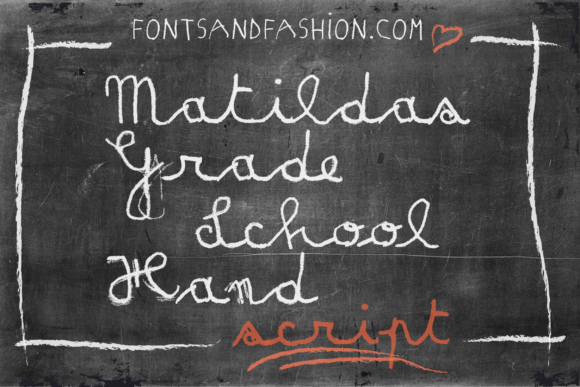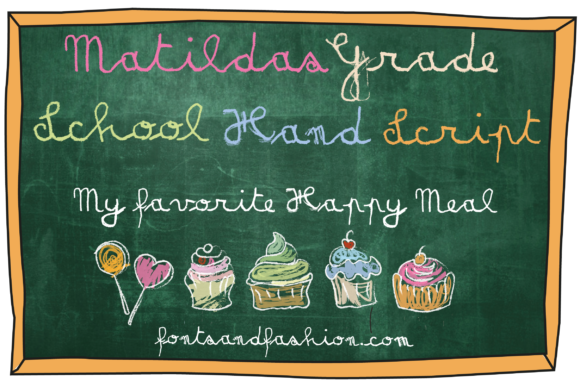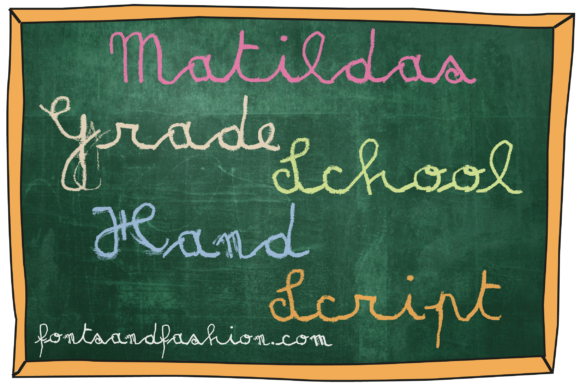
Introduction to Matilda’s Grade School Hand Script Font
Matilda’s Grade School Hand Script is a font with a childlike style.
It’s a cursive chalk font, inspired by primary school handwriting .